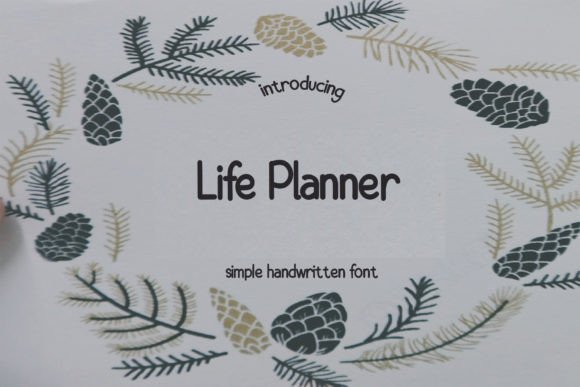
Life Planner: A Unique Font for Creative Expression
When it comes to typography, the right font can make a significant difference in how a message is perceived. Life Planner is one such font that stands out with its delicate and unique design. This elegant typeface is ideal for those who want to add a touch of sophistication and creativity to their projects. Whether you're designing invitations, crafting product labels, or creating eye-catching titles, Life Planner offers a versatile solution that can elevate your work.
What Is Life Planner?
Life Planner is a delicate display font that combines elegance with a modern aesthetic. Its carefully crafted letterforms are designed to be both visually appealing and highly readable. The font's subtle curves and refined details give it a cool and unique look that sets it apart from more conventional typefaces. This makes Life Planner an excellent choice for designers looking to add a personal touch to their work.
One of the key characteristics of Life Planner is its ability to convey a sense of warmth and individuality. Unlike many other fonts that may feel generic or overused, Life Planner brings a fresh perspective to typography. It's particularly well-suited for projects that require a personal or artistic flair, making it a popular choice among creators and professionals alike.
Key Features of Life Planner
- Delicate Design: Life Planner features soft, flowing lines that give it a graceful and refined appearance.
- High Readability: Despite its intricate details, the font remains highly legible, even at smaller sizes.
- Versatile Use: Life Planner can be used across a wide range of applications, including invitations, packaging, and digital media.
- Unique Style: The font's distinctive character makes it stand out in a crowded design landscape.
Where Can Life Planner Be Used?
The versatility of Life Planner makes it suitable for a variety of applications. One of the most common uses is in the creation of invitations, where its elegant style can add a touch of class and sophistication. Whether it's for a wedding, birthday party, or corporate event, Life Planner can help set the tone for the occasion.
In addition to invitations, Life Planner is also ideal for food products. Its clean and stylish appearance can enhance the visual appeal of packaging, labels, and menus. For businesses in the food industry, using Life Planner can help create a memorable brand identity that resonates with customers.
Another area where Life Planner shines is in title design. Whether you're working on a book cover, a website header, or a presentation slide, this font can add a professional and polished look. Its unique style ensures that your titles stand out while maintaining a level of readability that is essential for effective communication.
Who Benefits From Using Life Planner?
Life Planner is particularly beneficial for a wide range of users, including general consumers, professionals, creators, and business owners. For individuals who are passionate about design, this font offers a way to express their creativity and add a personal touch to their work. It's also a valuable tool for professionals who need to communicate ideas effectively through visual elements.
Business owners can use Life Planner to enhance their branding efforts. By incorporating this font into their marketing materials, they can create a consistent and recognizable identity that appeals to their target audience. Additionally, online users who are looking for practical information on typography will find Life Planner to be a useful resource that offers both style and functionality.
Strengths and Considerations
One of the main strengths of Life Planner is its ability to blend beauty with usability. Its delicate design does not come at the expense of readability, making it a practical choice for various applications. This balance between aesthetics and functionality is what makes Life Planner a popular option among designers and creatives.
However, it's important to consider the context in which Life Planner is used. While it excels in display settings, it may not be the best choice for body text or long paragraphs. In such cases, a more traditional font may be more appropriate to ensure clarity and ease of reading.
Real-World Applications of Life Planner
Let's explore some real-world scenarios where Life Planner can make a meaningful impact. For example, a small bakery might use Life Planner on its packaging to create a warm and inviting brand image. The font's elegant style can help differentiate the bakery's products from competitors and attract customers who appreciate attention to detail.
Similarly, a freelance designer might use Life Planner in their portfolio to showcase their creative skills. By incorporating this font into their project descriptions or headings, they can demonstrate their ability to work with unique and expressive typography. This can be especially beneficial when targeting clients who value originality and artistry.
For event planners, Life Planner can be a valuable tool when designing invitations for special occasions. Its refined appearance can add a sense of exclusivity and class, making the event feel more memorable and impactful for attendees.
How to Evaluate Suitability for Your Needs
Before deciding to use Life Planner, it's important to evaluate whether it aligns with your specific needs and goals. Start by considering the purpose of your project. If you're looking for a font that adds a personal or artistic touch, Life Planner is likely a good fit. However, if your primary focus is on clarity and simplicity, you may want to explore other options.
Another factor to consider is the audience you're targeting. If your audience values creativity and uniqueness, Life Planner can help you stand out. On the other hand, if your audience prefers a more straightforward and traditional approach, you may need to choose a different font.
Finally, take the time to experiment with Life Planner in different contexts. Try using it in sample designs or mockups to see how it looks and feels. This hands-on approach can help you determine whether it's the right choice for your project.